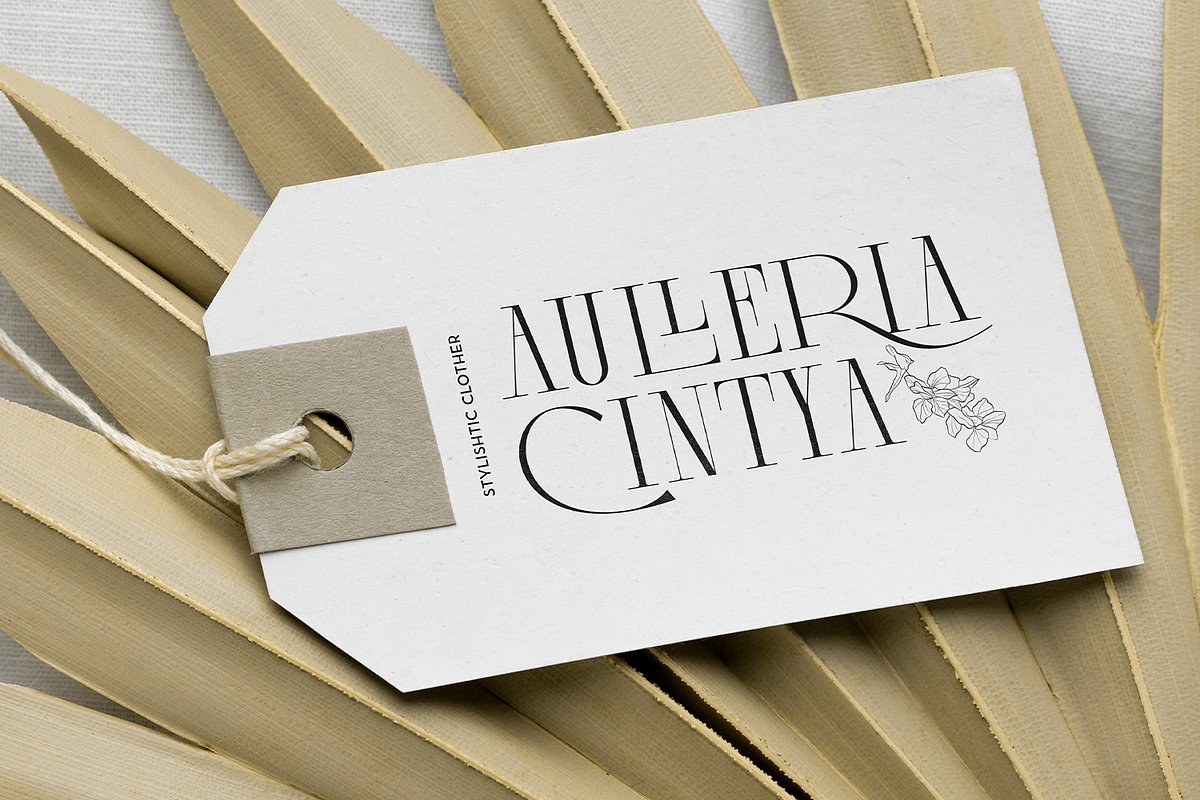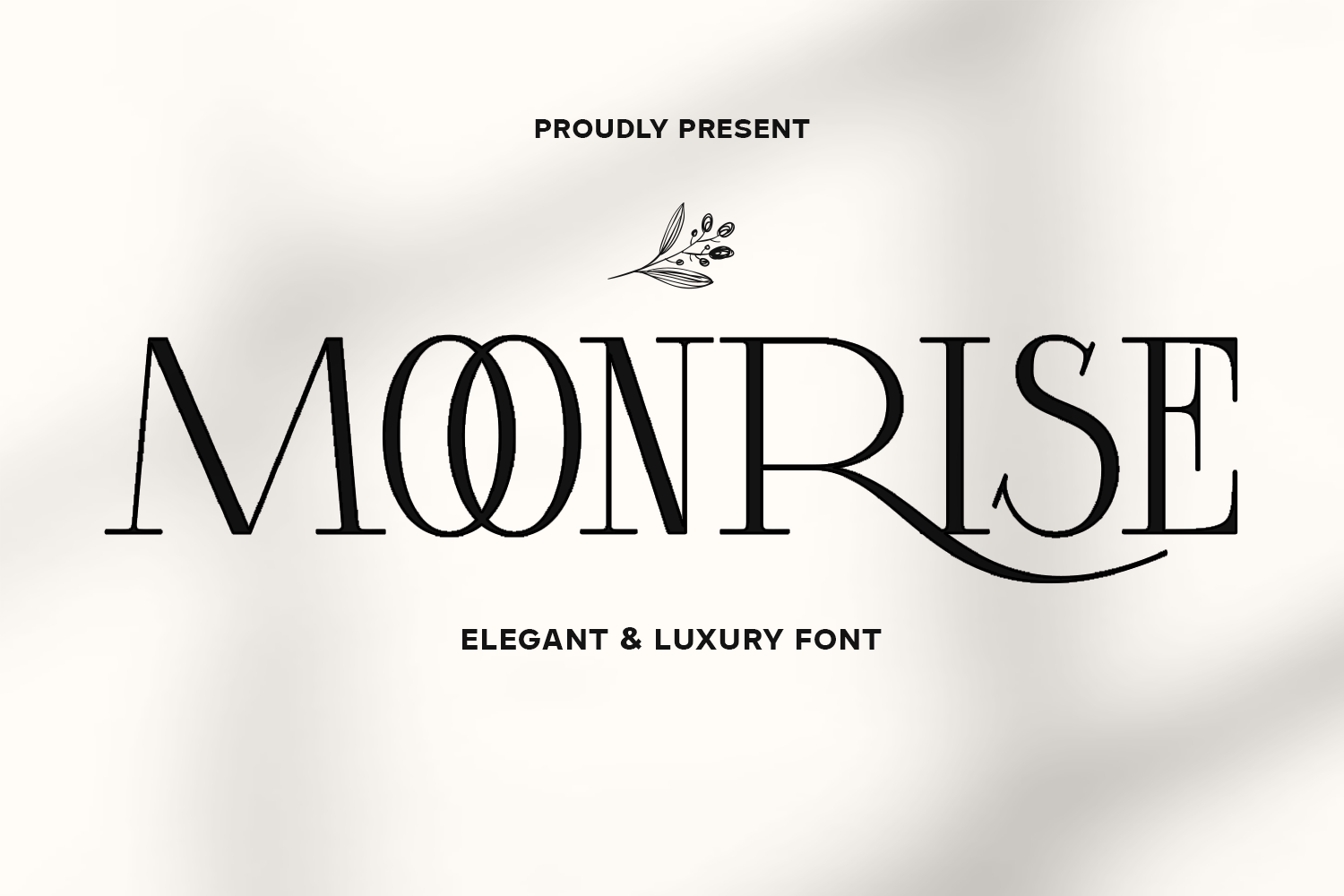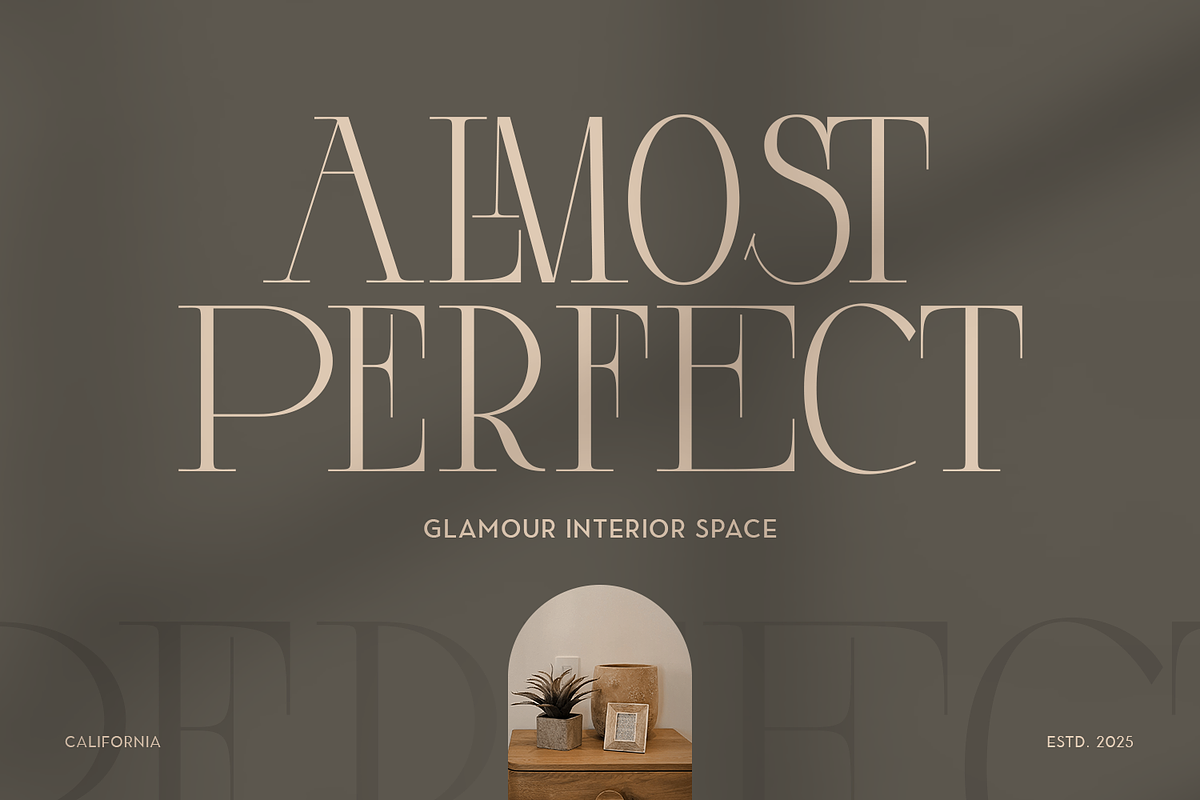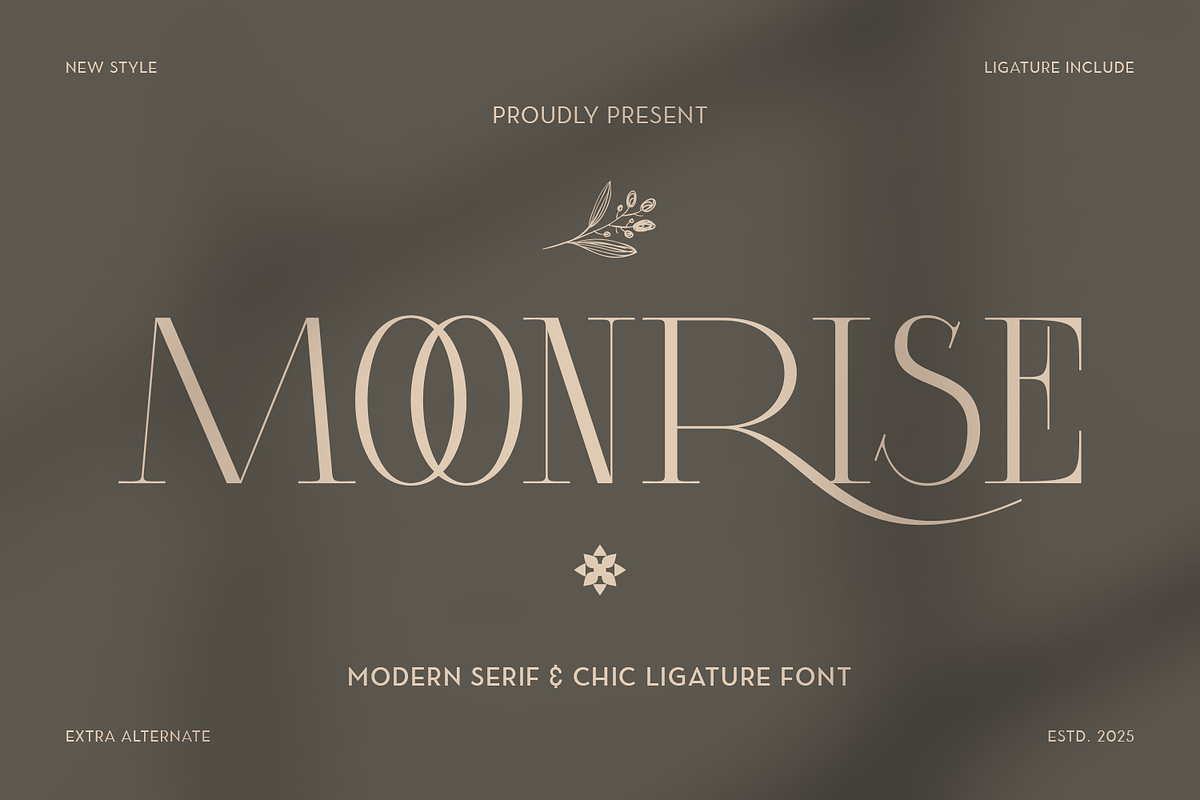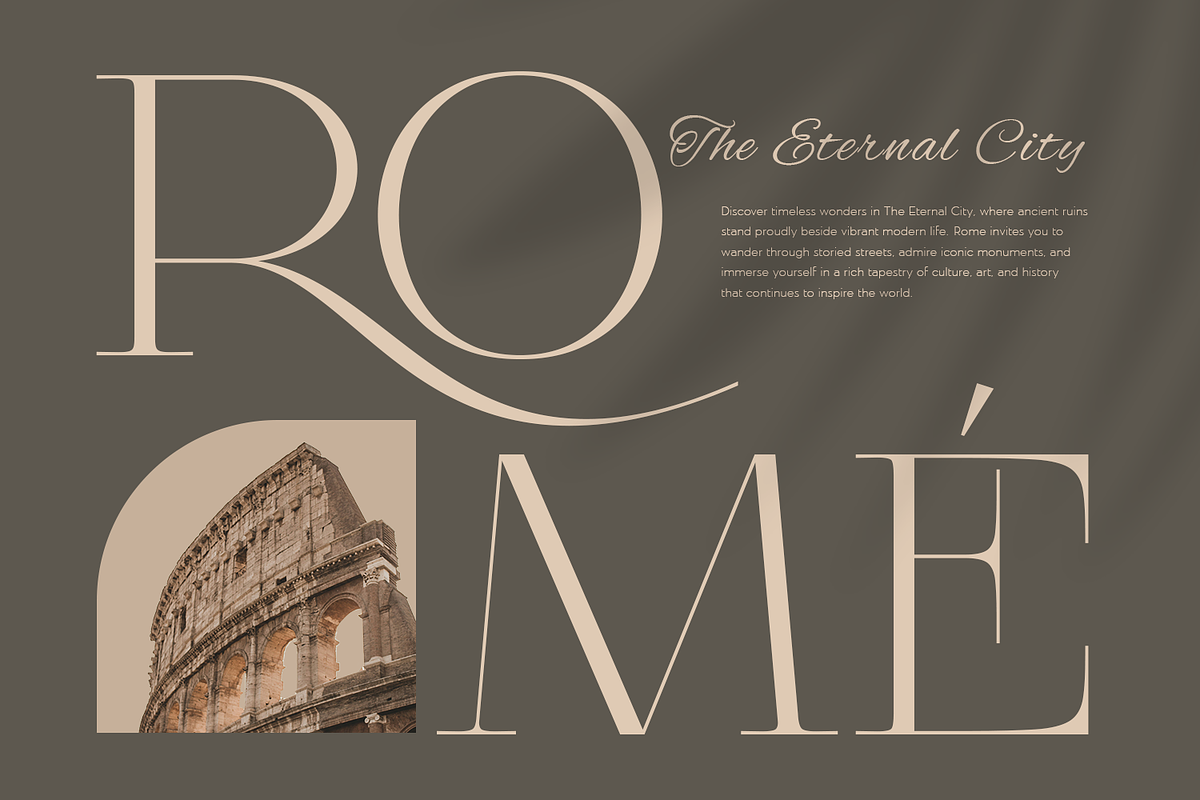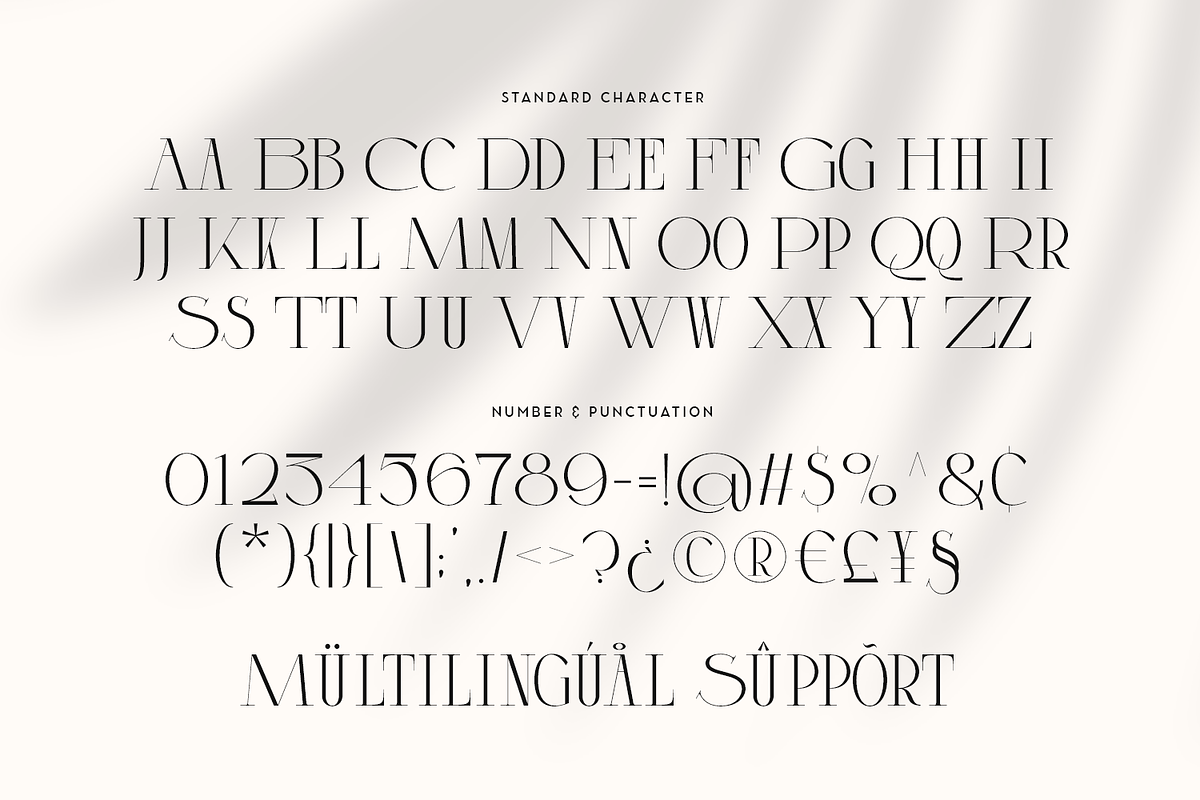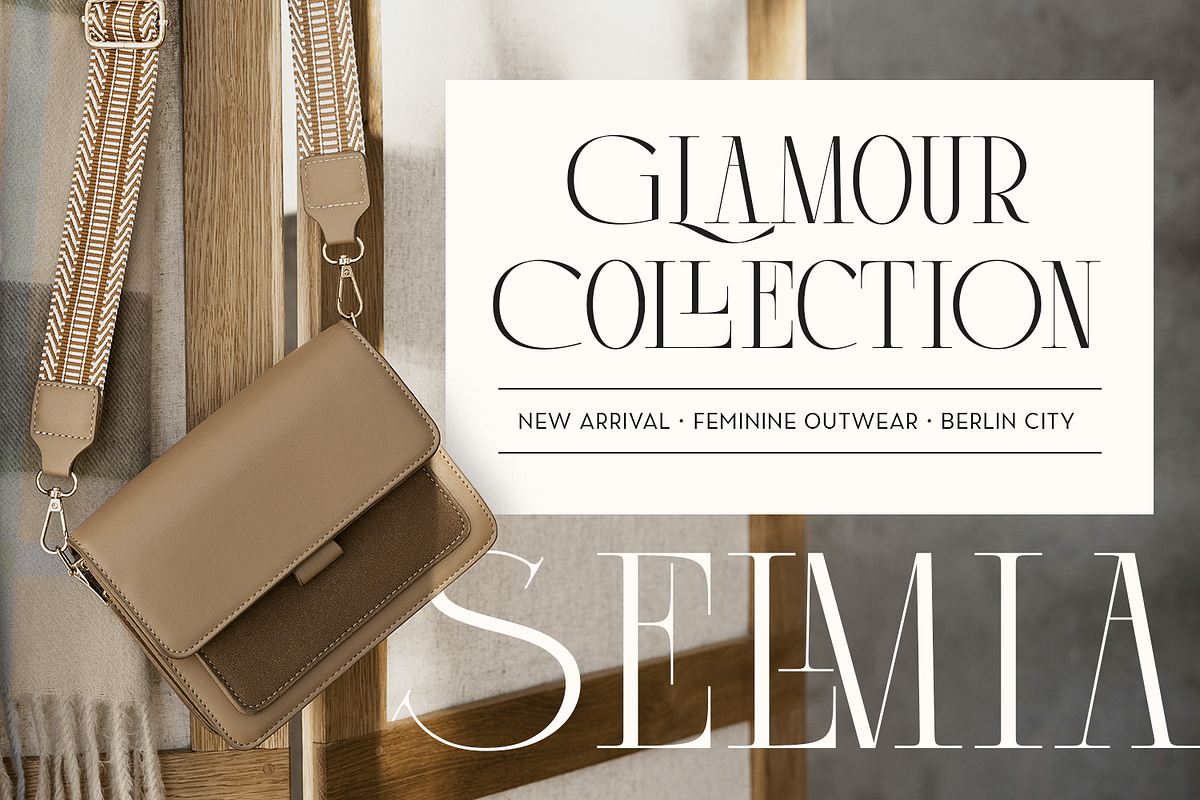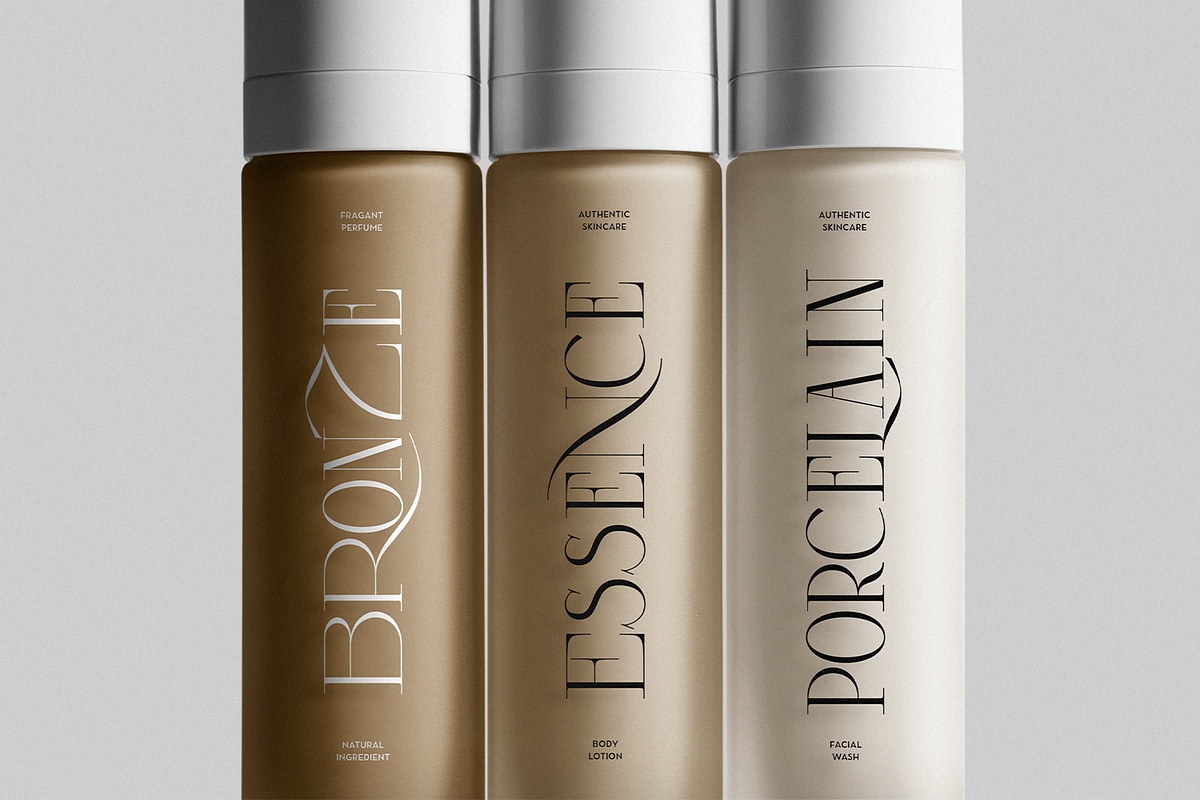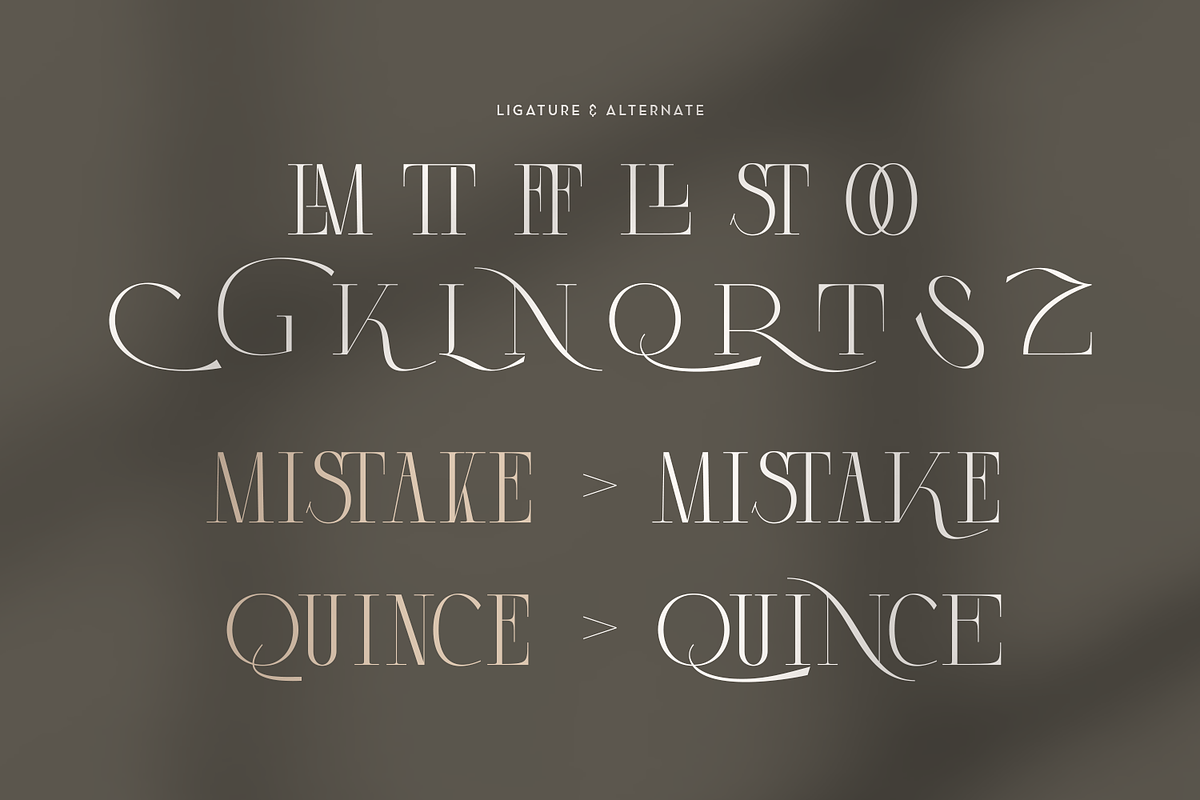
Moonrise - Luxury Font
Moonrise introduces a refined blend of script calligraphy and elegant serif detailing, creating a luxurious typographic expression suitable for high-end visual identities. Its graceful strokes and sculpted structure deliver a sophisticated balance between artistry and modernity.
Featuring a wide selection of alternates and meticulously crafted ligatures, Moonrise offers extensive creative flexibility. Each character flows seamlessly, allowing smooth customization for distinctive lettering compositions and premium branding outcomes.
The fusion of fluid calligraphic curves with poised serif forms gives Moonrise a unique presence. This hybrid style elevates any layout with a sense of exclusivity, making it ideal for projects that require both refinement and visual impact.
Designed to enhance editorial aesthetics, Moonrise stands out effortlessly in magazines, beauty logos, fashion labels, lifestyle products, and refined promotional materials. Its luxurious character ensures a polished and memorable impression across digital and print platforms.
With its harmonious contrast and expressive alternates, Moonrise provides a versatile typographic solution for sophisticated branding needs. Explore the full elegance of Moonrise and elevate every design—download it today.